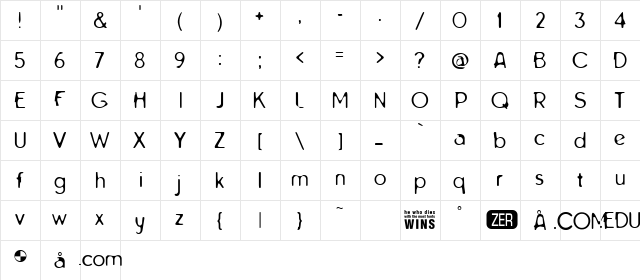
Tarnished Halo Regular
Design Context for Tarnished Halo Typeface
Tarnished Halo is a composed and adaptable typeface that performs quietly and consistently across a wide range of design contexts.